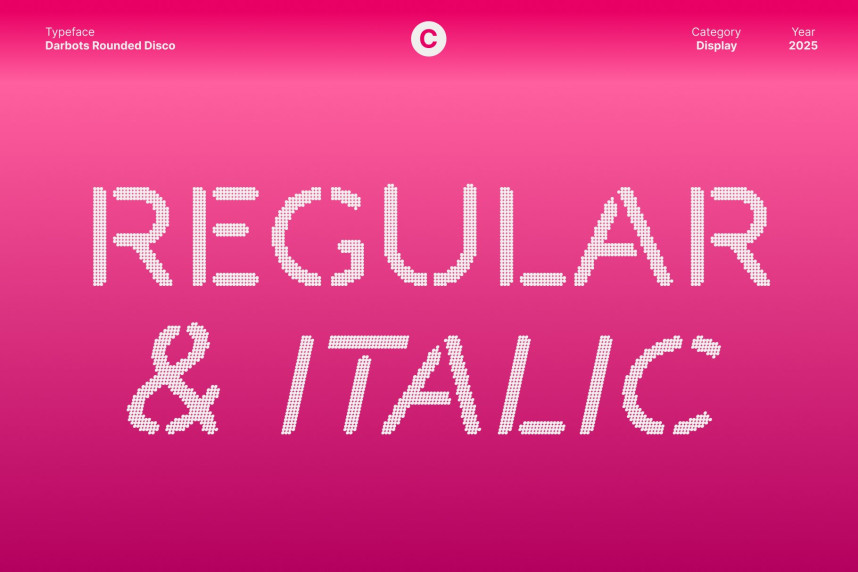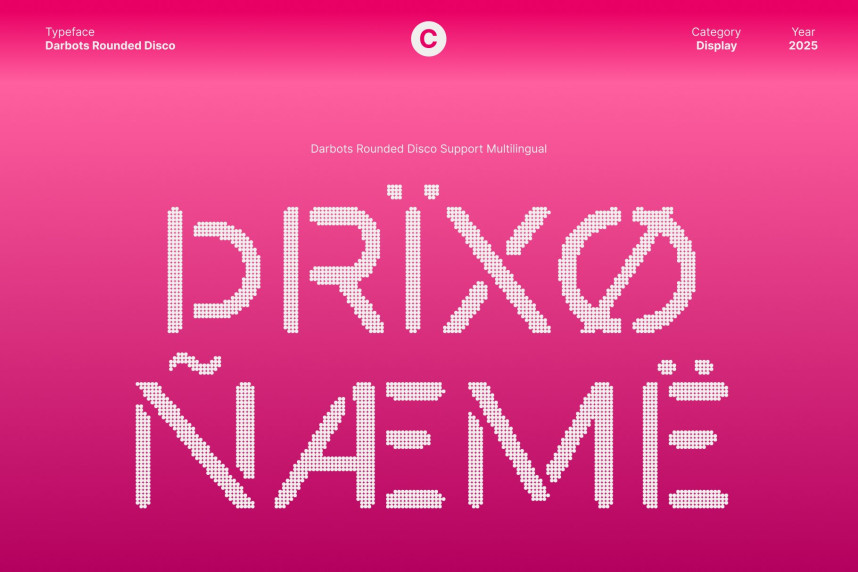
Darbots Rounded Disco Font
Darbots Rounded Disco Font – Stencil Sans Serif with Glamorous Digital Shine Industrial Stencil Design with Rounded Precision. This is a stencil sans serif font that blends industrial toughness with smooth, rounded shapes. Its cutout structure creates an edgy, mechanical feel, while the softened curves add approachability and balance. This combination results in a striking display font perfect for bold visuals that demand attention.